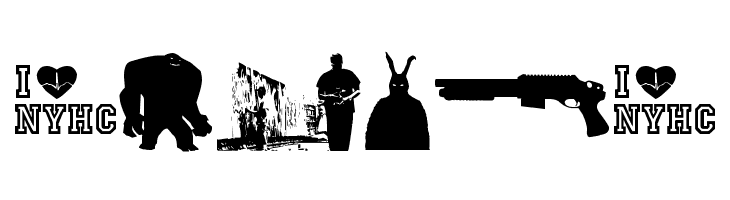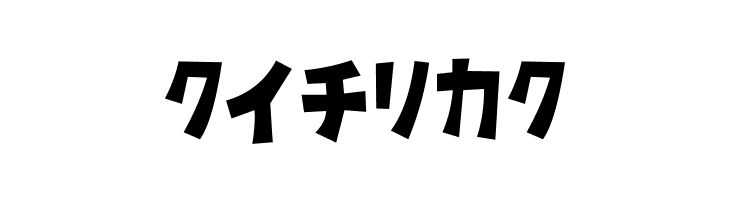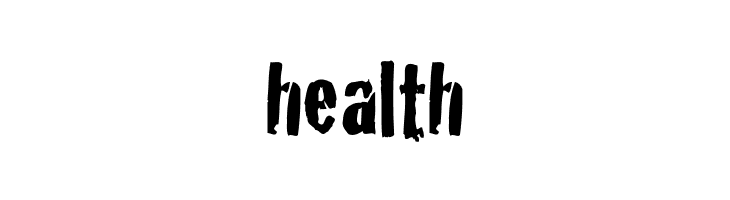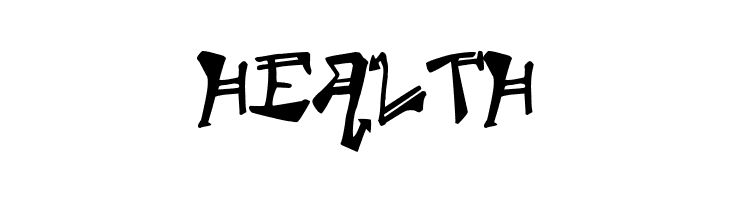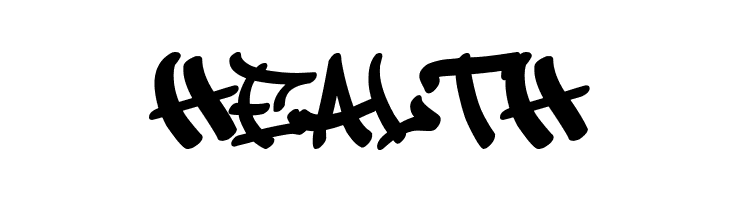
A bold, distressed font with a gritty, urban street art style.
A bold, distressed font with a grunge aesthetic and chaotic texture.
A distressed, grungy font with chaotic, worn letterforms.
A bold, stencil-style font with a distressed, spray-painted look.
A bold, distressed stencil font with a rugged, industrial feel.
A bold, distressed font with a grunge aesthetic and uniform uppercase characters.
A bold, distressed font with a gritty, urban aesthetic.
A bold, graffiti-inspired font with a rough, hand-drawn look.
A bold, graffiti-inspired font with a rough, brush-like texture.
A bold, graffiti-inspired font with dynamic and expressive letterforms.
A bold, graffiti-inspired font with a dynamic, hand-drawn style.
A graffiti-inspired font with sharp, angular lines and an edgy, rebellious style.
A bold, graffiti-inspired font with thick outlines and dynamic curves.
A bold, graffiti-inspired font with sharp, angular lines and dynamic strokes.
A bold, graffiti-inspired font with dynamic and angular letterforms.